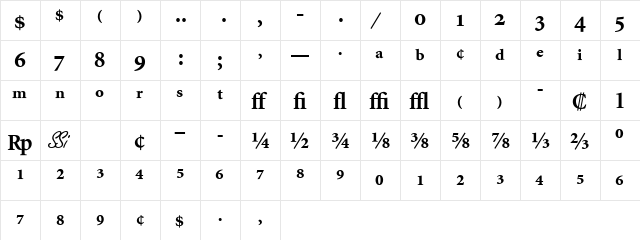
Atlantix Pro Black SSi Bold
Design Context for Atlantix Pro Black SSi Typeface
Atlantix Pro Black SSi takes a measured approach to typography — its balanced proportions and neutral character make it a reliable workhorse for both digital and print work. Its bold stroke weight gives it real presence on the page.
Pro Tip: Use Atlantix Pro Black SSi in both headline and body roles to test its range before committing to a single application.